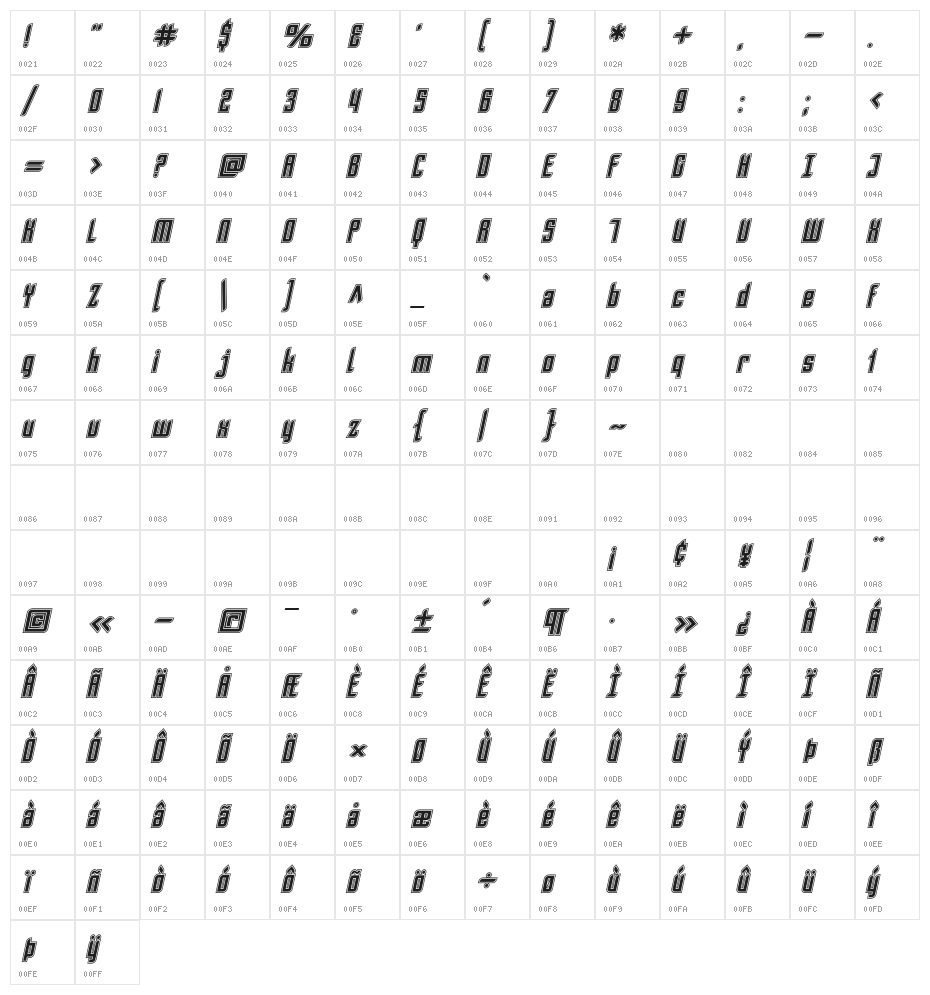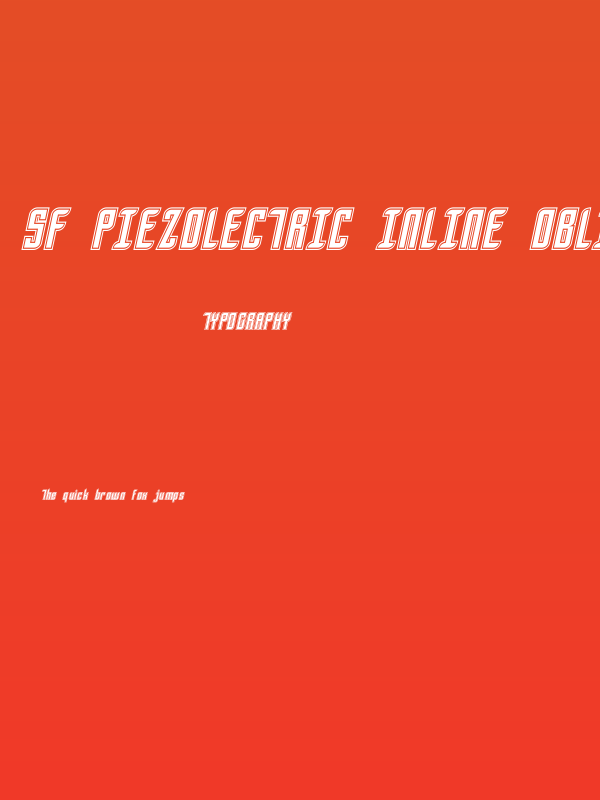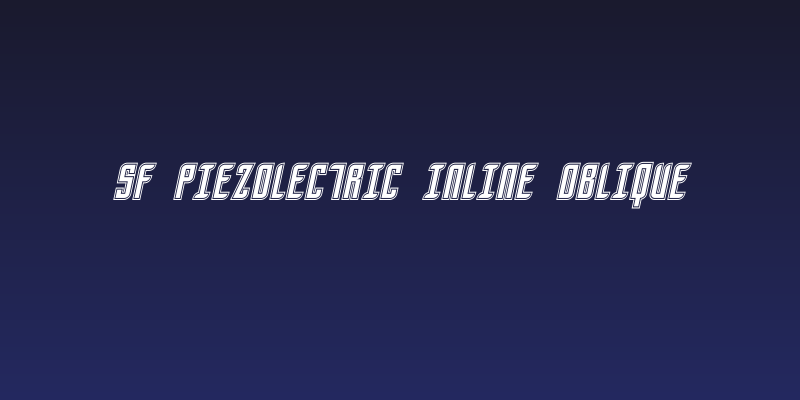
SF Piezolectric Inline Oblique Font
SF Piezolectric Inline Oblique Description
This font features a bold, futuristic design with an inline oblique style. The characters are outlined, creating a striking visual effect that emphasizes their geometric shapes. The uppercase and lowercase letters maintain a consistent slant, enhancing the dynamic and modern appearance. The numerals and special characters follow the same stylistic approach, ensuring uniformity across all glyphs. The font's unique inline detailing adds depth and dimension, making it ideal for projects that require a bold, attention-grabbing typeface.
| Proposed Projects | Ideal for sci-fi themed designs, video game titles, tech branding, and futuristic posters. |